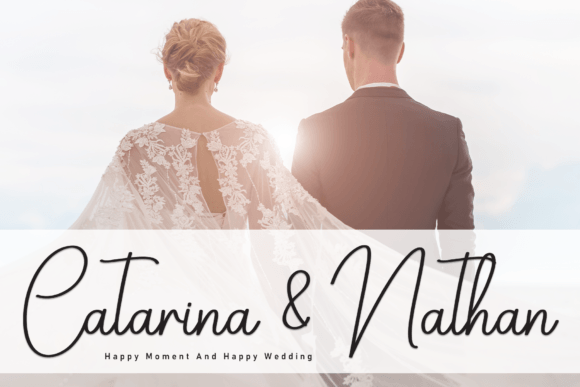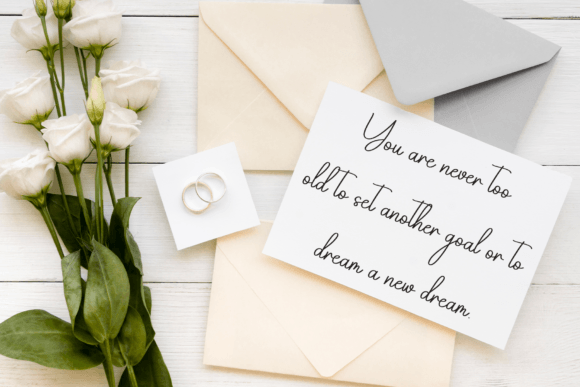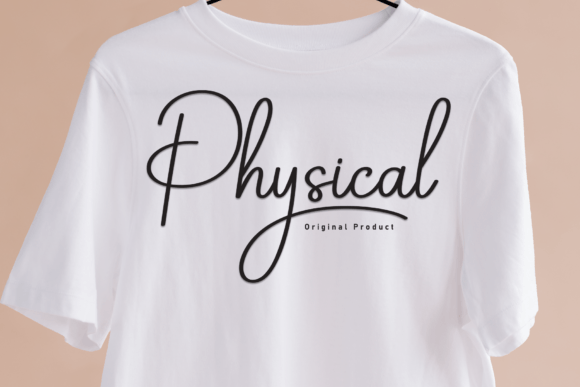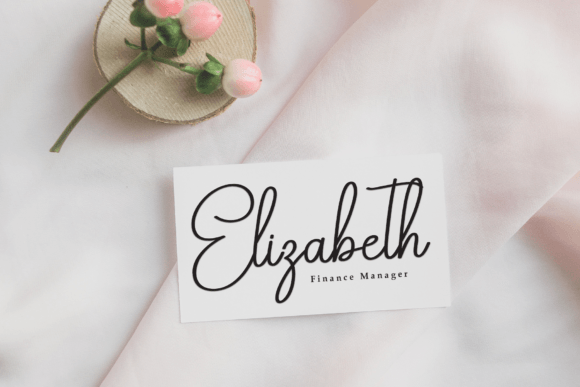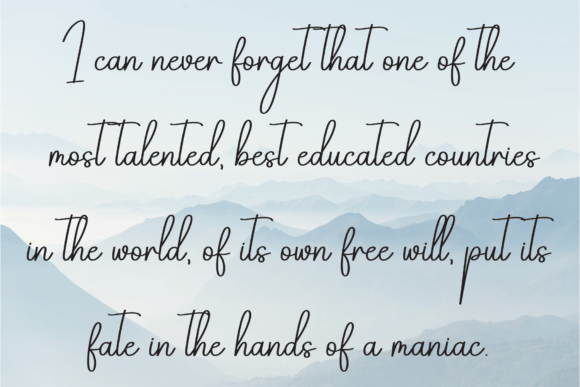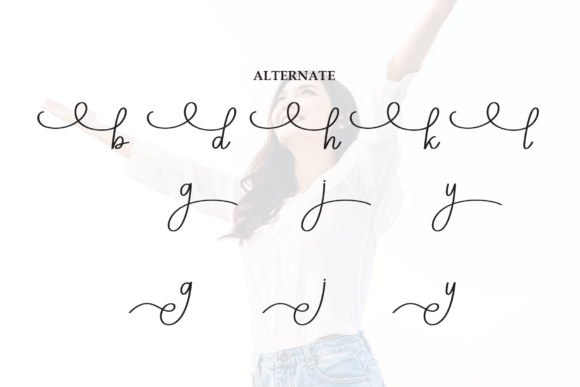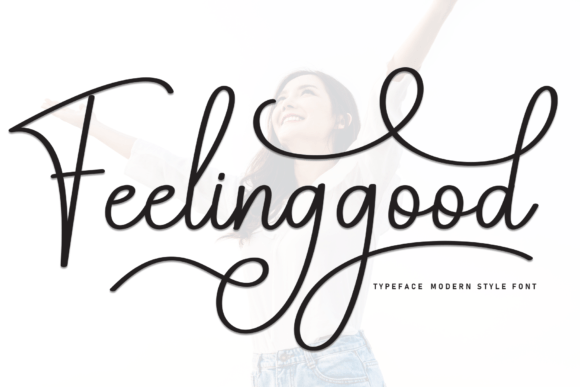
Discover the Charm of Feelinggood Font: Elevate Your Designs with a Sweet and Friendly Handwritten Style
Are you on the hunt for a font that can add a personal touch to your designs? Look no further than the Feelinggood Font, a sweet and friendly handwritten font that is sure to capture the hearts of designers and crafters alike. With its natural and unique style, Feelinggood Font is incredibly versatile and can be used in a wide range of designs, from invitations and greeting cards to branding and packaging.
The Unique Characteristics of Feelinggood Font
Feelinggood Font boasts a distinctive handwritten style that is both elegant and approachable. Its natural, fluid lines and subtle imperfections give it a charming, homemade feel that is perfect for designers who want to add a personal touch to their work. The font’s unique characteristics make it stand out from more traditional fonts, allowing designers to create truly one-of-a-kind designs that showcase their creativity and individuality.
The Benefits of Using Feelinggood Font in Your Designs
So why choose Feelinggood Font for your next design project? For starters, its sweet and friendly style makes it perfect for designs that require a warm and inviting tone. Whether you’re creating a wedding invitation, a children’s book, or a social media graphic, Feelinggood Font is sure to bring a smile to your audience’s faces. Additionally, the font’s versatility means that it can be used in a wide range of design applications, from digital graphics to print materials.
Endless Design Possibilities with Feelinggood Font
The only limit to what you can create with Feelinggood Font is your imagination! This incredibly flexible font can be used in a variety of design contexts, including:
- Wedding and Event Invitations: Add a touch of elegance and whimsy to your wedding or event invitations with Feelinggood Font.
- Branding and Packaging: Use Feelinggood Font to create unique and eye-catching brand identities that stand out from the crowd.
- Digital Graphics: From social media graphics to blog headers, Feelinggood Font is perfect for adding a personal touch to your digital designs.
- Print Materials: Use Feelinggood Font in your print materials, such as brochures, flyers, and business cards, to add a touch of warmth and personality.
Tips for Getting the Most Out of Feelinggood Font
To truly make the most of Feelinggood Font, here are a few design tips to keep in mind:
- Experiment with Colors: Feelinggood Font looks great in a variety of colors, so don’t be afraid to experiment and find the perfect hue for your design.
- Mix and Match Fonts: Combine Feelinggood Font with other fonts to create a unique and visually appealing design.
- Play with Texture and Patterns: Add an extra layer of depth and interest to your design by incorporating texture and patterns.
In conclusion, Feelinggood Font is a sweet and friendly handwritten font that is sure to become a staple in any designer’s toolkit. Its natural and unique style makes it incredibly versatile, and its charm and character are sure to captivate audiences of all ages. Whether you’re a designer, crafter, or simply someone who appreciates beautiful typography, Feelinggood Font is a must-have for anyone looking to add a personal touch to their designs.